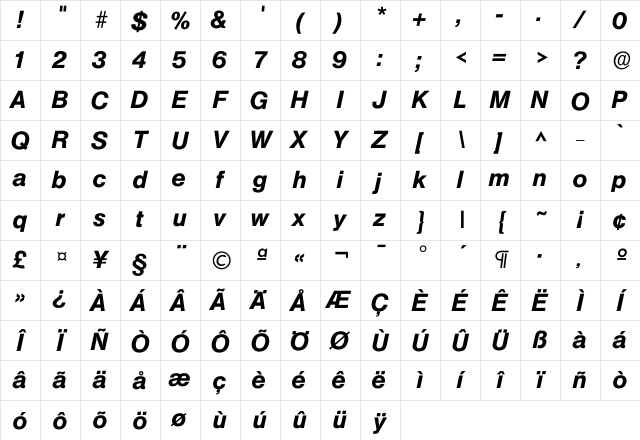
Iolympia Bold
Iolympia Family
Iolympia Bold
Design Context for Iolympia
Iolympia is a composed and adaptable typeface that performs quietly and consistently across a wide range of design contexts. Its bold stroke weight gives it real presence on the page.